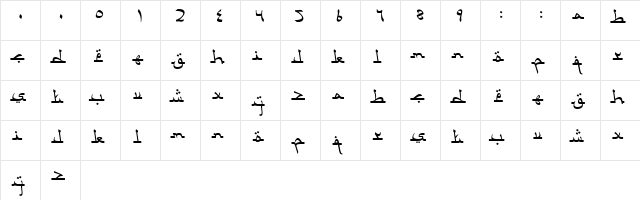
Aceh Darusalam Regular
Design Context for Aceh Darusalam Typeface
Aceh Darusalam takes a measured approach to typography — its balanced proportions and neutral character make it a reliable workhorse for both digital and print work.